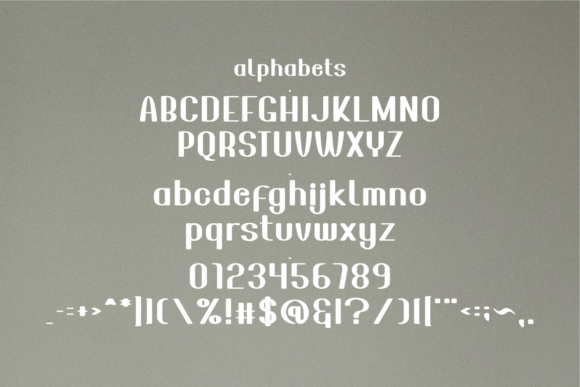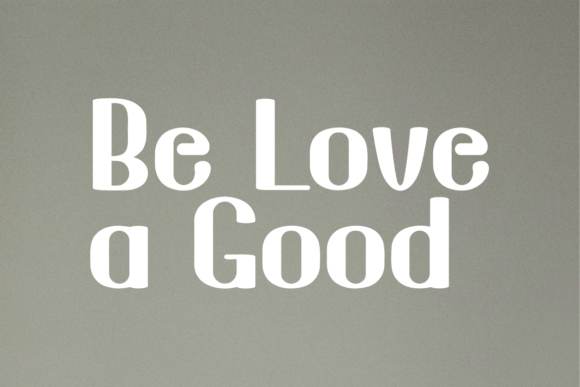
Bee Ready Font: Unleash the Power of Soft yet Bold Typography
Are you ready to take your design game to the next level with a font that’s as soft as it is bold? Look no further than the Bee Ready Font, a unique display typeface that’s inspired by the humble bee. With its gentle curves and powerful presence, this font is sure to make a statement in any design project.
The Inspiration Behind Bee Ready
The Bee Ready Font is called “bee” for a reason. Just like the bee that’s soft in shape but has great power, this font combines delicate curves with a bold and confident presence. The result is a typeface that’s both eye-catching and elegant, perfect for designers and crafters looking to add a touch of magic to their work.
Key Features of Bee Ready Font
• Soft yet Bold: The Bee Ready Font strikes the perfect balance between soft, rounded curves and bold, confident lines. This unique combination makes it perfect for creating eye-catching headings and titles.
• Unique Character: With its bee-inspired design, the Bee Ready Font has a distinct character that’s sure to set your design apart from the crowd.
• Magical Aesthetic: Whether you’re designing a whimsical children’s book or a sophisticated branding campaign, the Bee Ready Font is sure to add a touch of magic to your work.
• Versatile: From display headings to packaging design, the Bee Ready Font is versatile enough to be used in a wide range of design applications.
Using Bee Ready Font in Your Design Projects
So, how can you use the Bee Ready Font in your design projects? Here are a few ideas to get you started:
• Headings and Titles: Use the Bee Ready Font to create eye-catching headings and titles that are sure to grab attention.
• Branding and Packaging: Add a touch of whimsy and magic to your branding and packaging design with the Bee Ready Font.
• Invitations and Announcements: Make your invitations and announcements stand out with the Bee Ready Font’s unique and elegant design.
• Digital and Print Media: Whether you’re designing for digital or print, the Bee Ready Font is sure to look great in any medium.
Tips for Pairing Bee Ready Font with Other Typefaces
While the Bee Ready Font is stunning on its own, it can also be paired with other typefaces to create a unique and interesting design. Here are a few tips for pairing the Bee Ready Font with other fonts:
• Contrast with Sans-Serifs: Pair the Bee Ready Font with a clean sans-serif font to create a striking contrast between soft and bold typography.
• Match with Script Fonts: For a more elegant look, pair the Bee Ready Font with a script font that complements its whimsical design.
• Experiment with Serif Fonts: Don’t be afraid to experiment with pairing the Bee Ready Font with serif fonts to create a unique and interesting design.
In conclusion, the Bee Ready Font is a unique and versatile typeface that’s perfect for designers and crafters looking to add a touch of magic to their work. With its soft yet bold design, this font is sure to make a statement in any design project. So why wait? Download the Bee Ready Font today and unleash the power of soft yet bold typography in your designs!